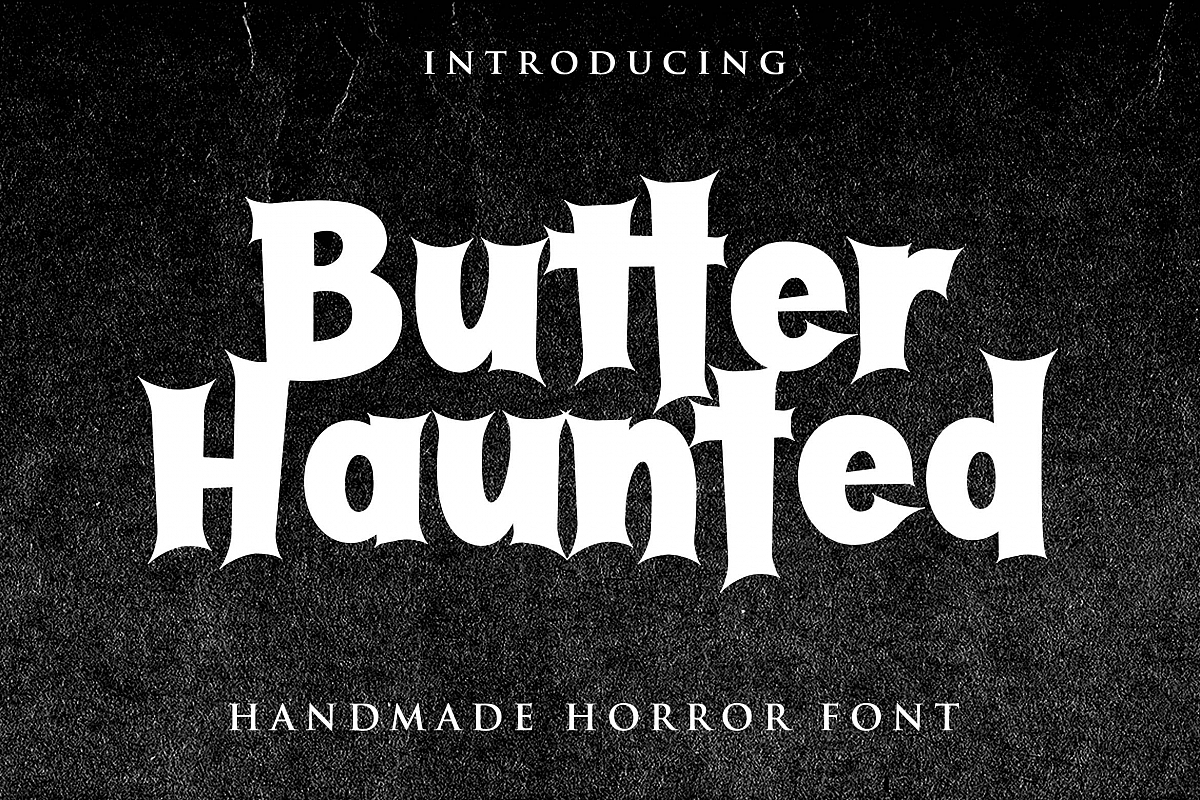
Butter Haunted
Butter
Haunted is cool horror font. You can use this font for every horror
moment like Halloween, Dark Clothing, Horror Movie Poster, and etc